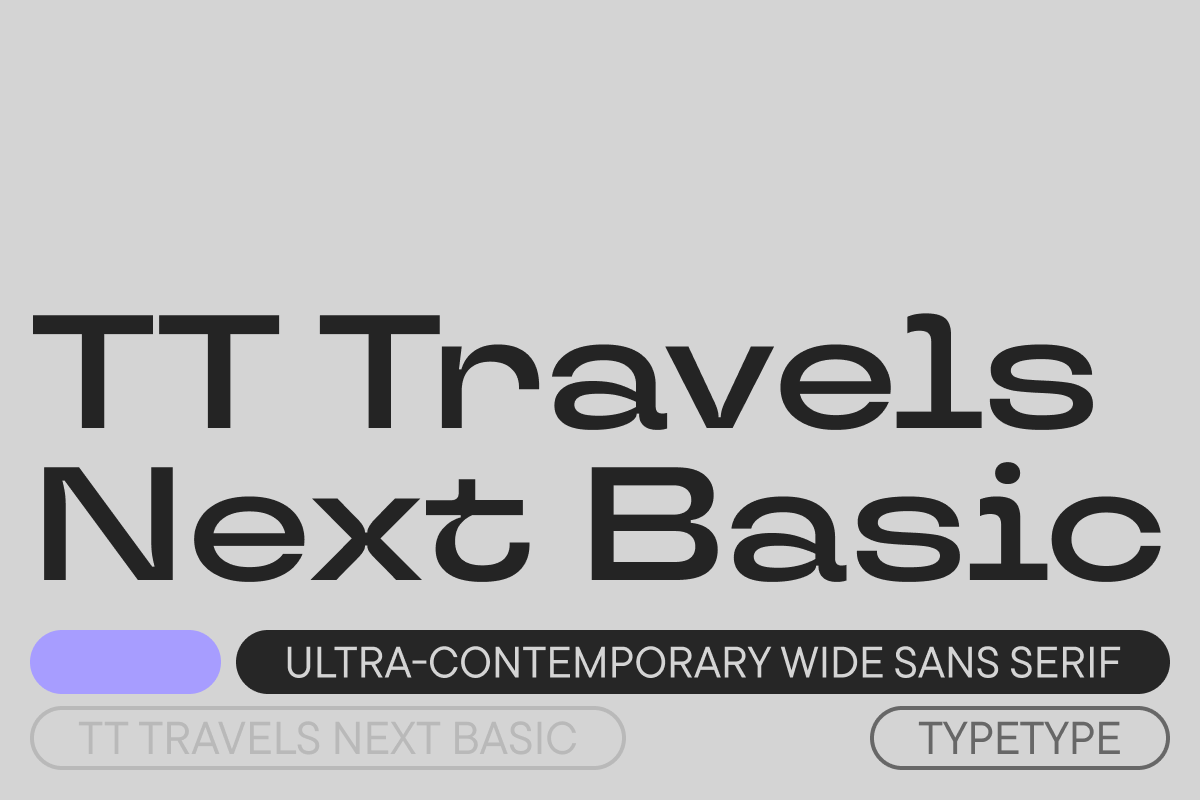
TT Travels Next ExtraBold Italic
TT Travels Next is an ultra-modern, wide sans serif. Wide proportions are one of the typeface’s distinctive features: there is almost no glyph narrowing when transitioning from bold to thin font styles. Besides, the font stands out for its extra closed aperture, low contrast, and noticeable ink traps. Interestingly, TT Travels Next does an exceptional job blending smooth and sharp forms, which makes it highly versatile, unusual, and attractive.